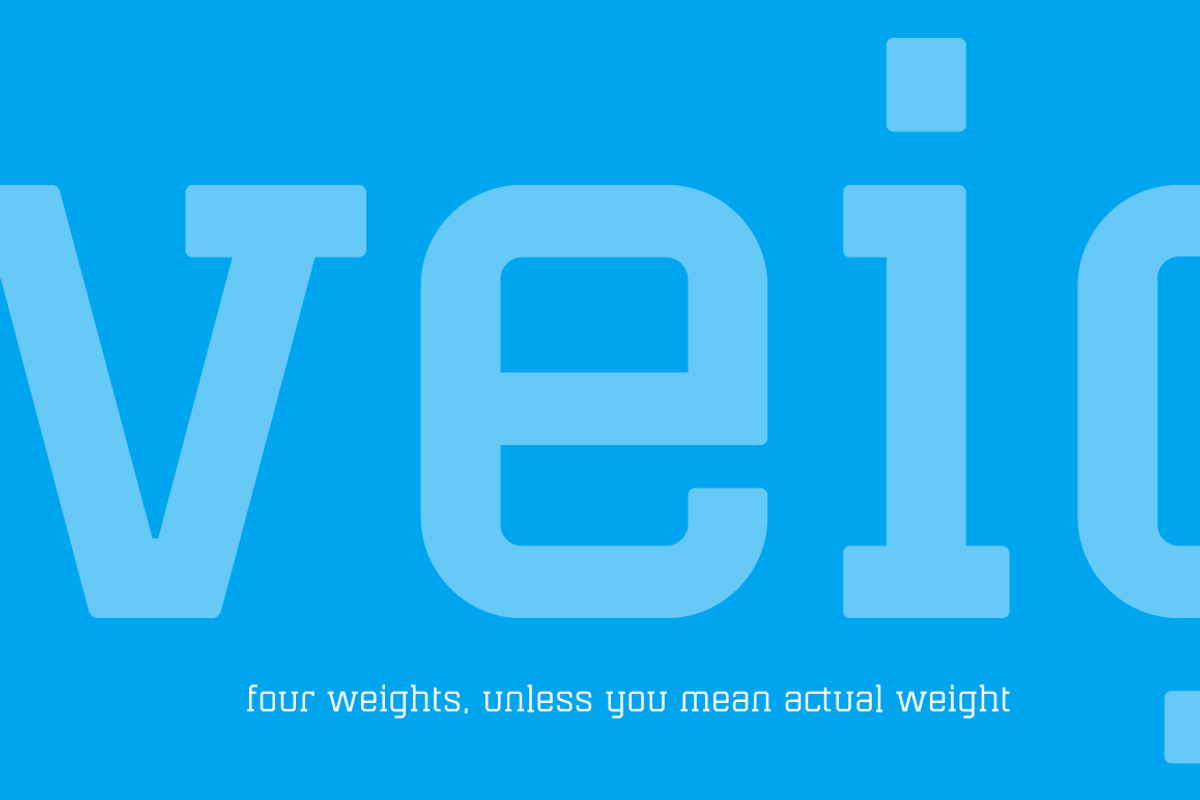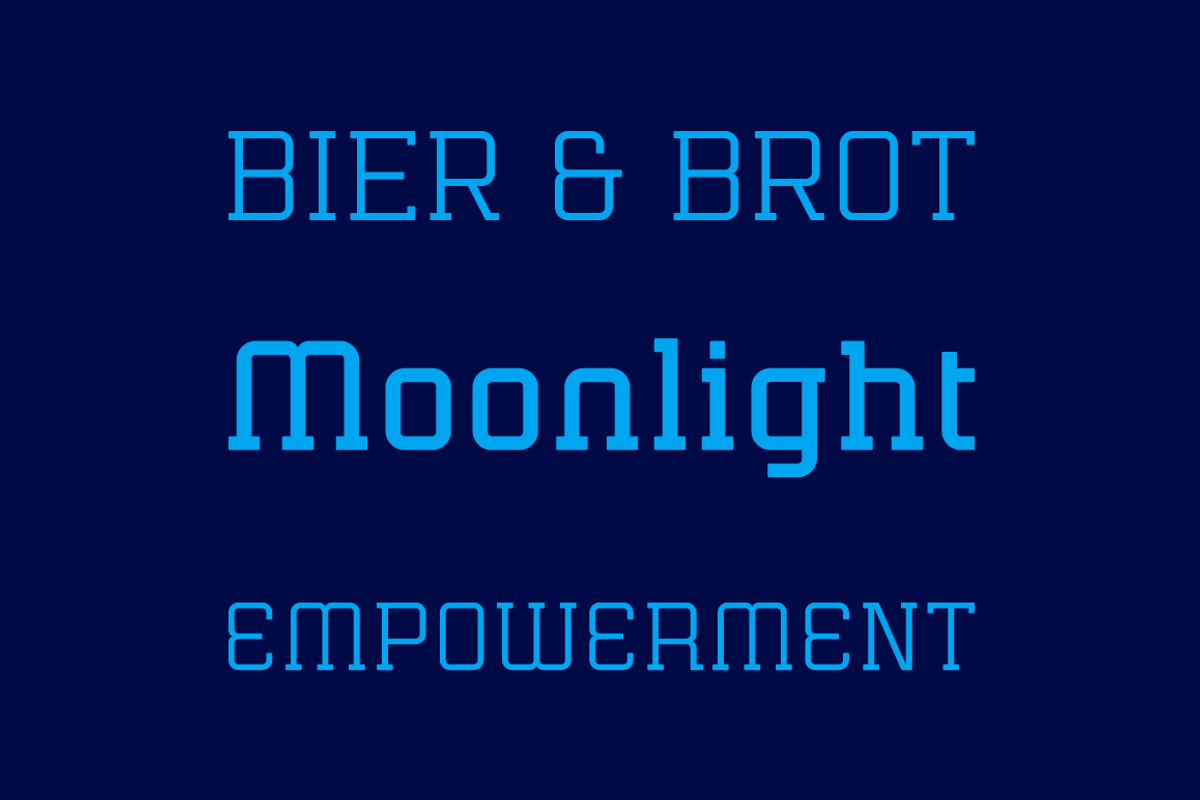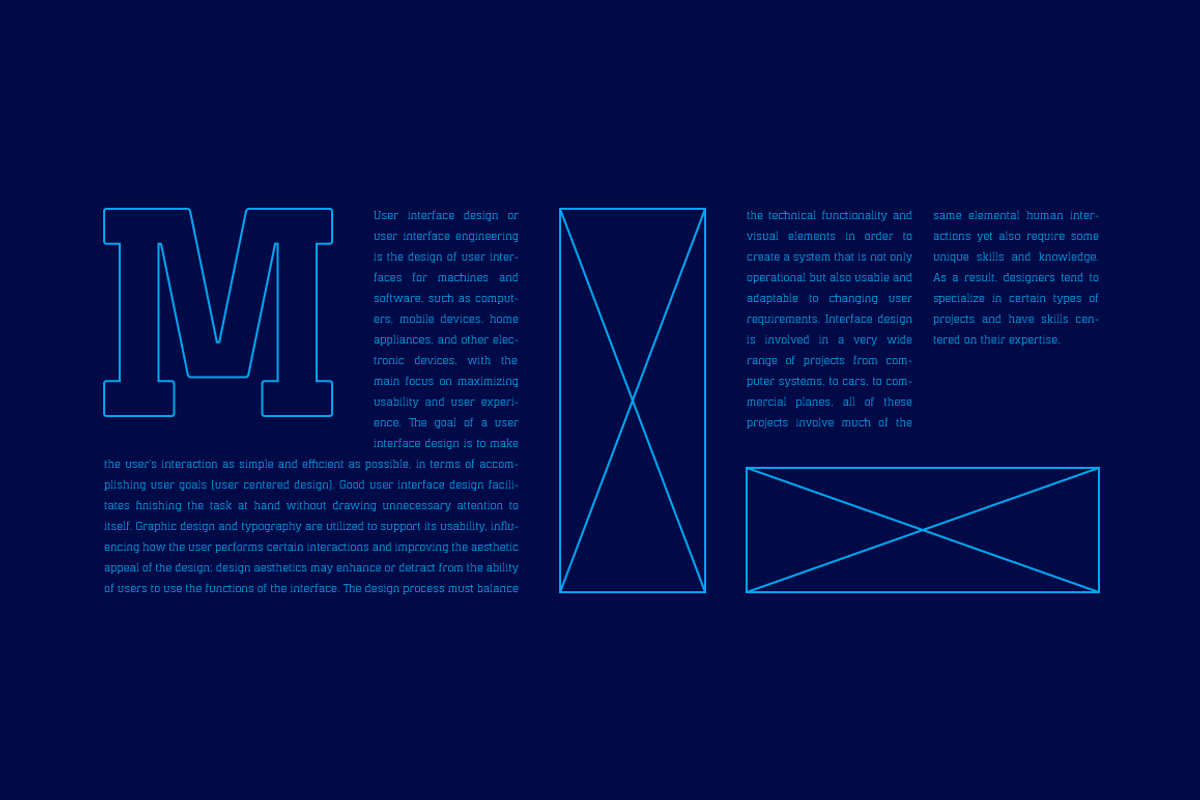
Mensura Slab Font Family
Mensura Slab Font Family by Graviton Font Foundry is a font selected for branding, posters, packaging, typography.
- Each containing small caps and several alternate characters.
Mensura Slab Font Family by Graviton Font Foundry fits naturally into Branding, posters, packaging, typography.